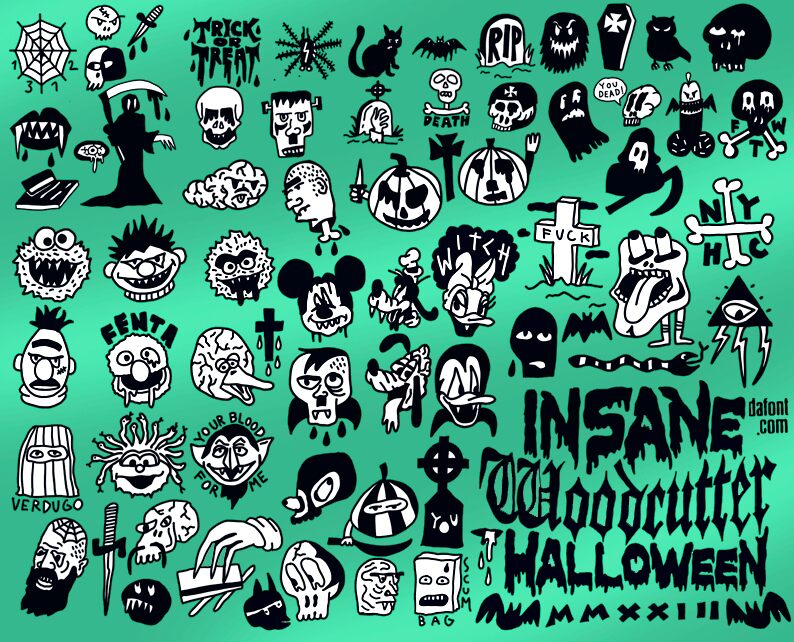
Insane Woodcutter Halloween
The Insane Woodcutter Halloween font, designed by Woodcutter, is a hauntingly delightful dingbats typeface perfect for adding a spooky touch to your Halloween projects.
Its horror-inspired style features an array of chilling symbols and characters, making it ideal for creating eerie party invitations, bone-chilling posters or flyers, and even ghoulish social media graphics.
Let your imagination run wild as you bring the spirit of Halloween to life with this creepy font that is sure to leave a lasting impression on your audience.